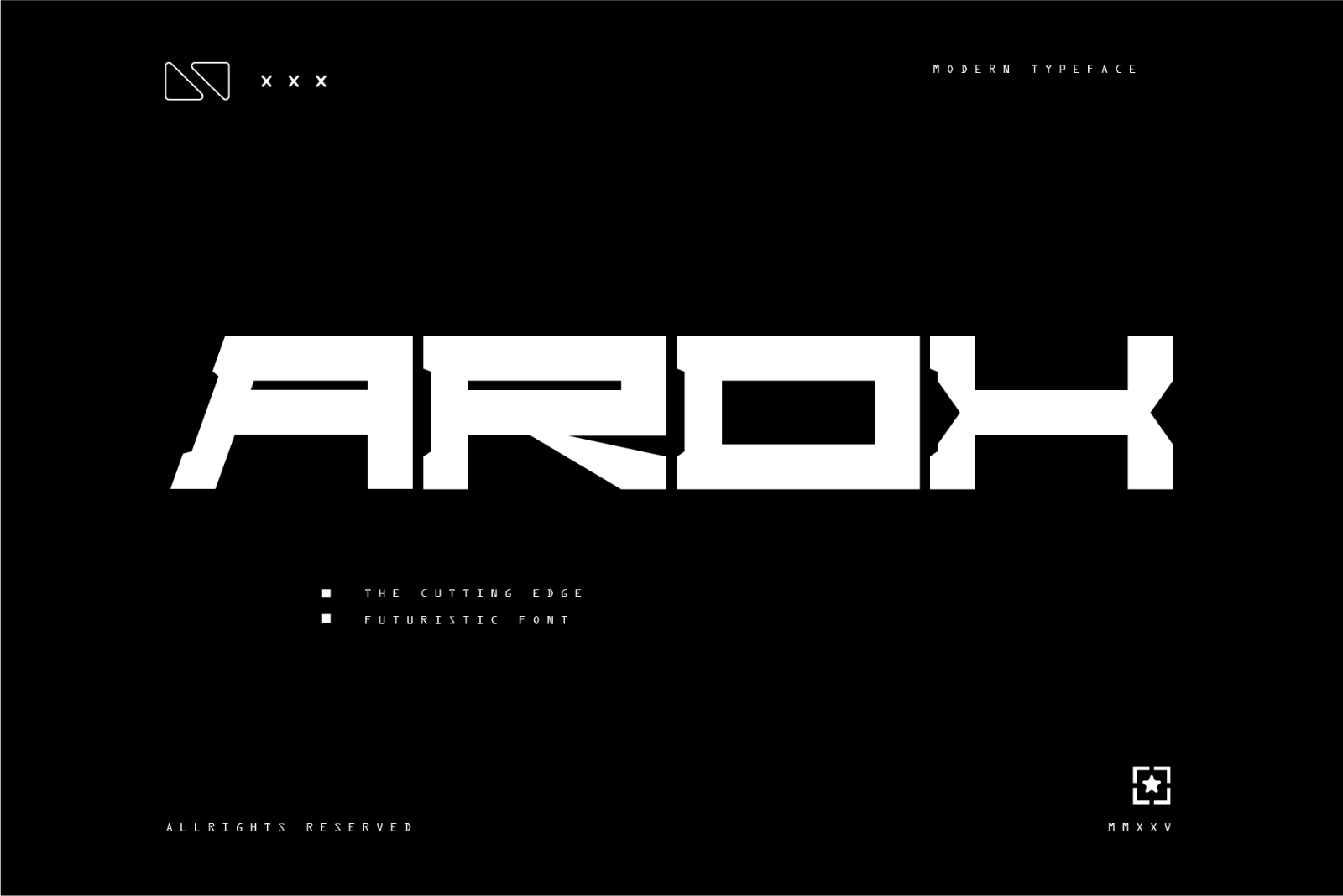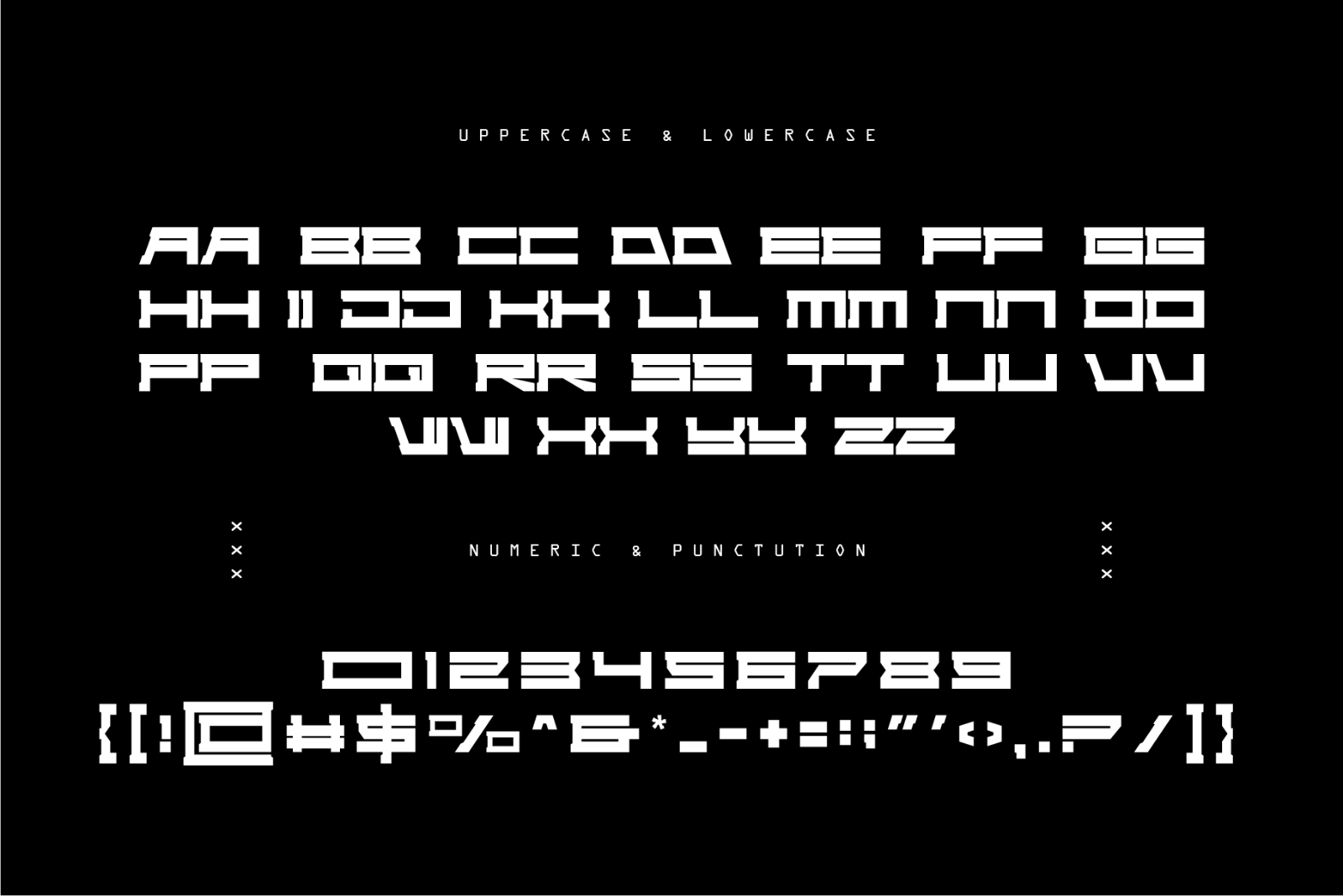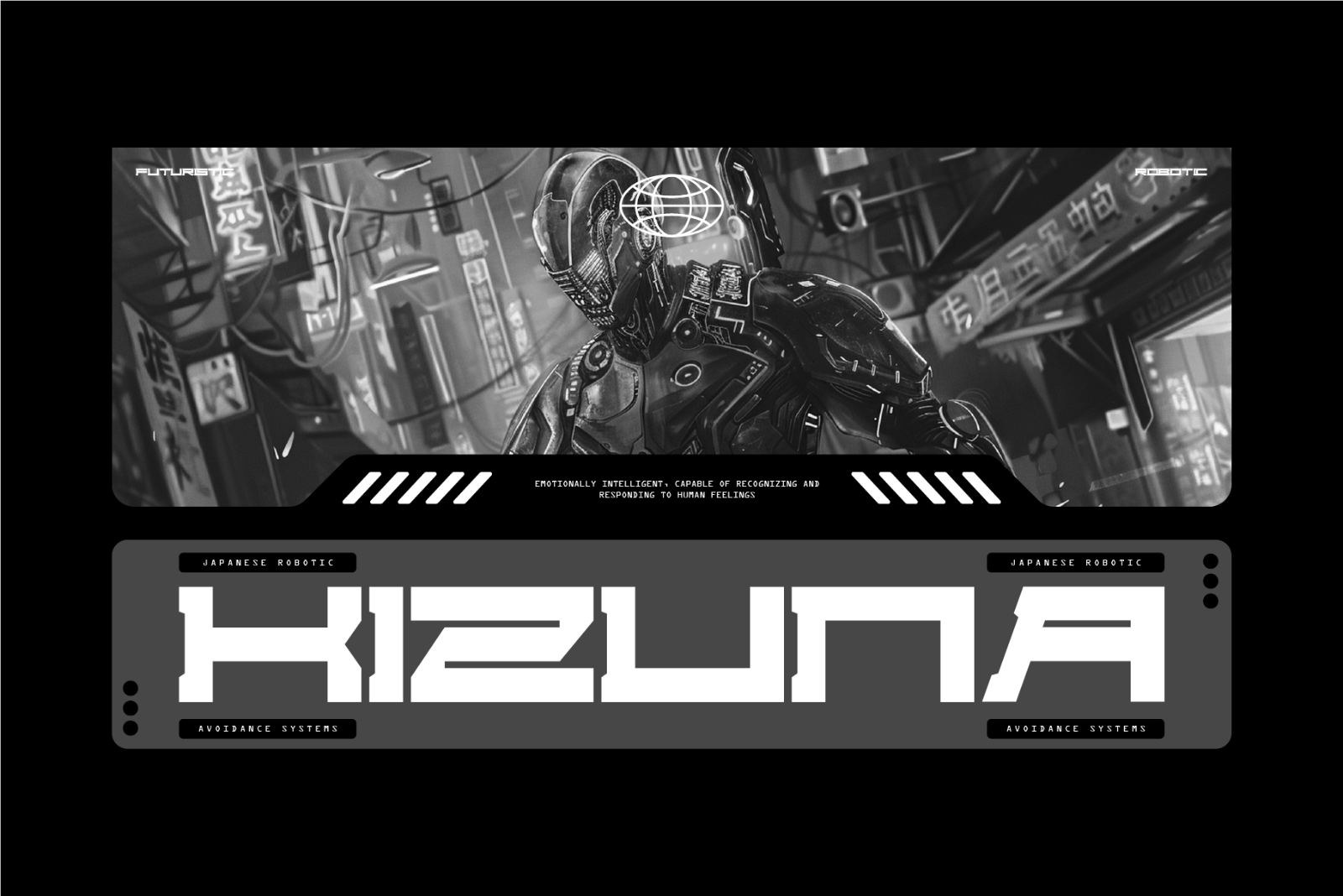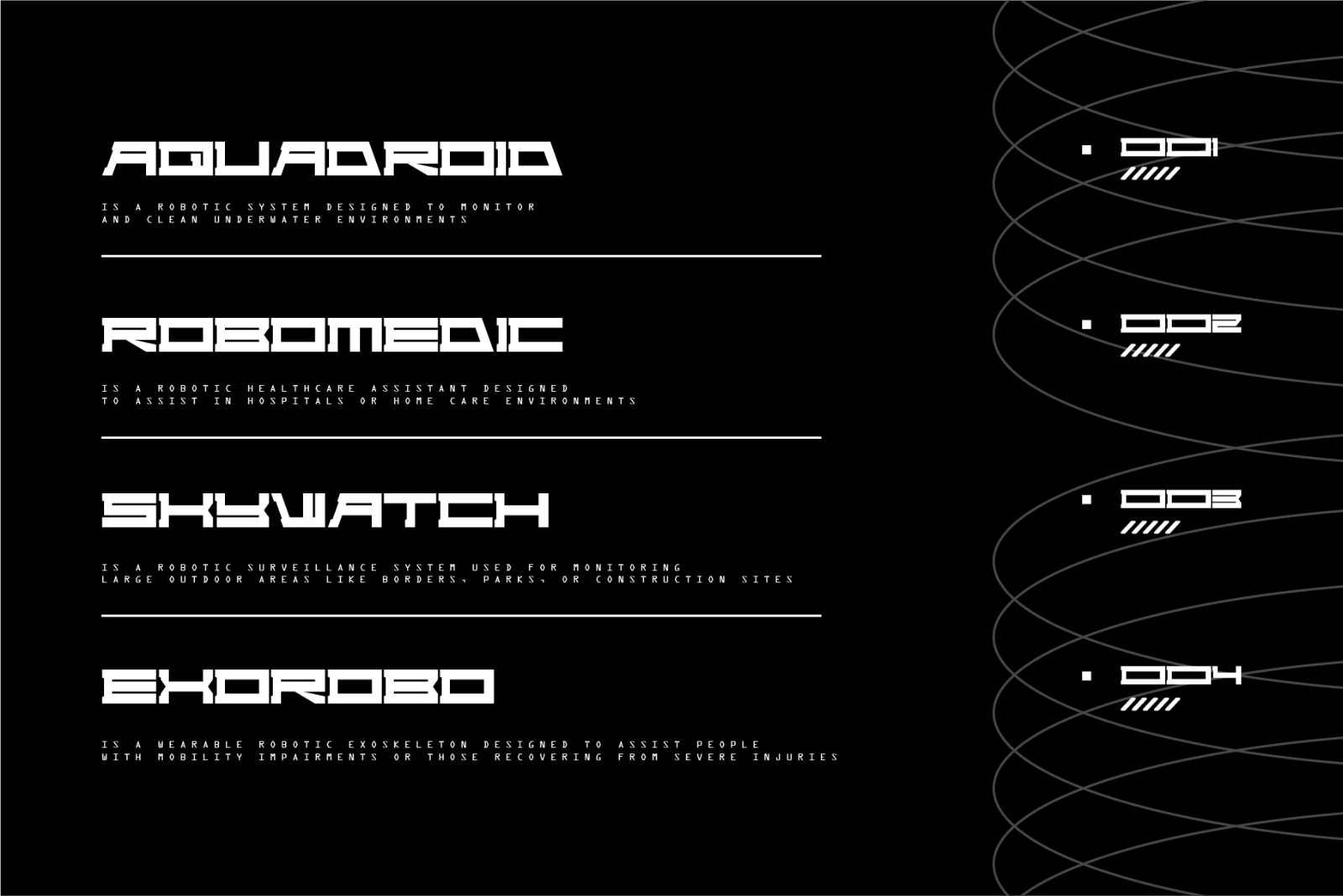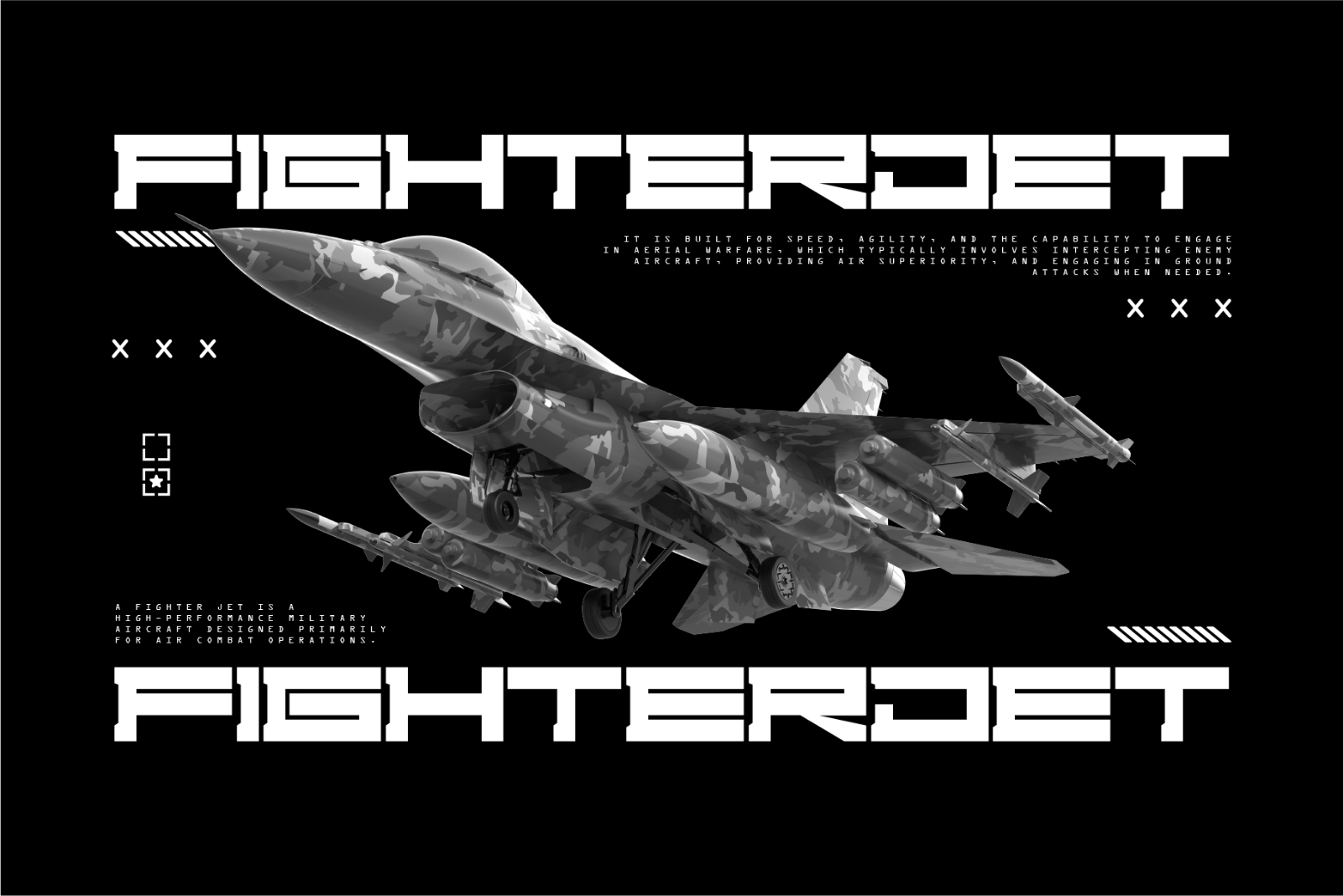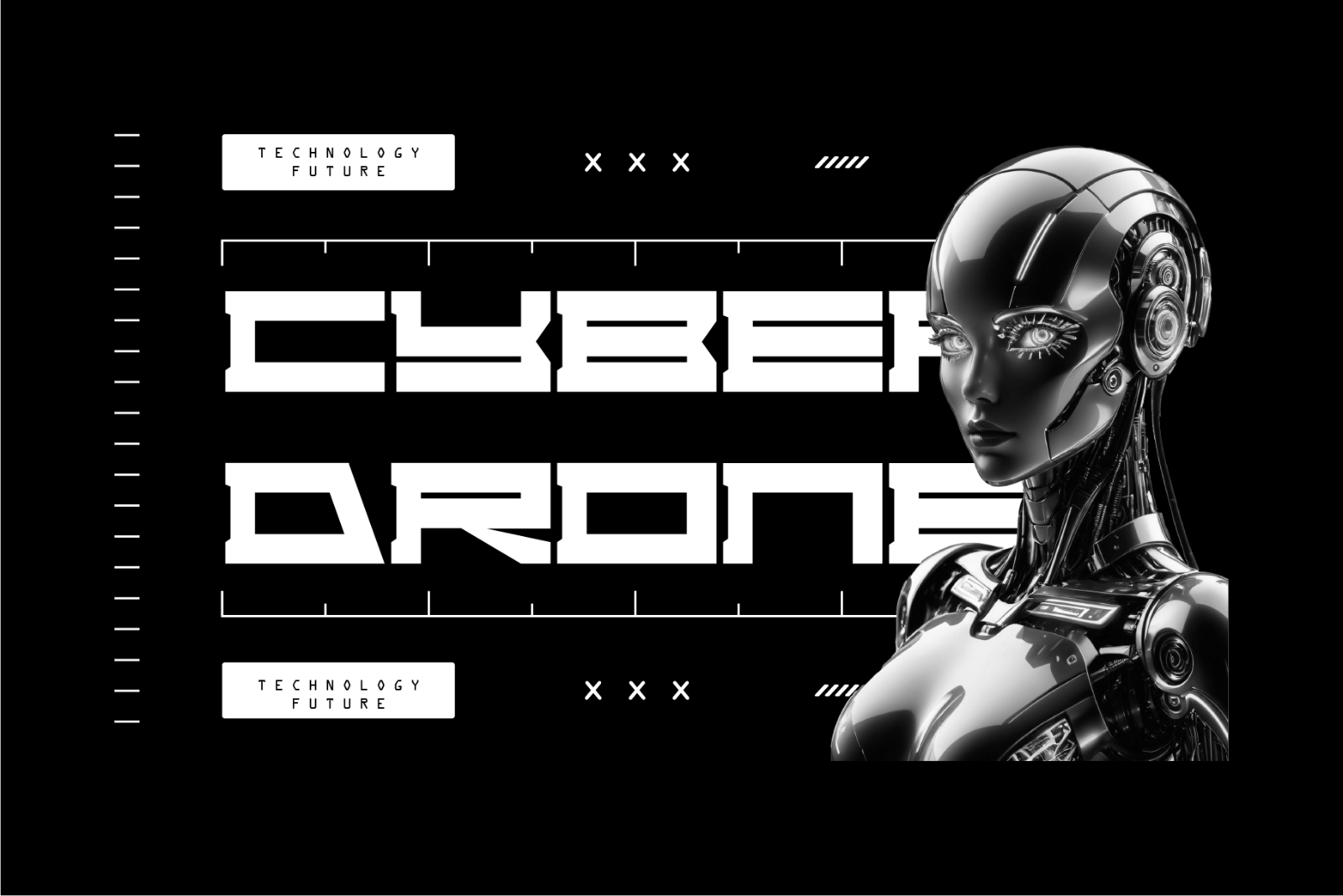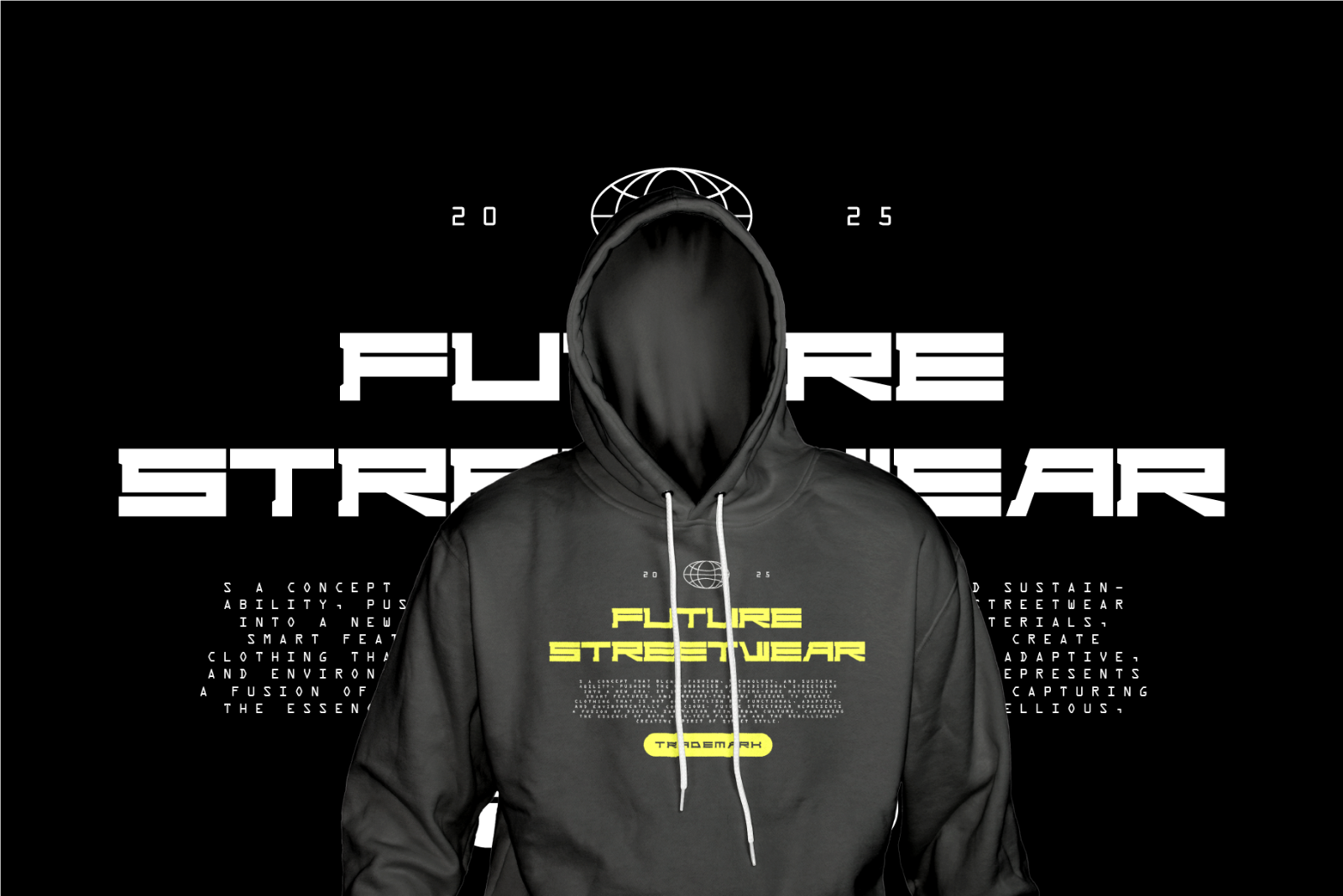
Arox is modern typeface collection characterized by sleek, angular lines and sharp geometric forms, often used in sci-fi, tech, and esports designs. It blends minimalism with cutting-edge aesthetics, making it ideal for high-tech branding, digital interfaces, posters, and logos. These fonts are versatile, with styles that range from sleek, high-contrast letterforms to more aggressive, blocky designs, offering both readability and visual impact.